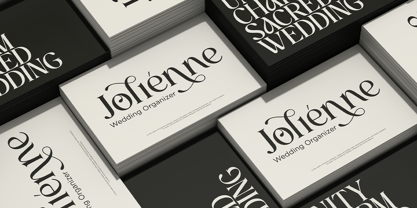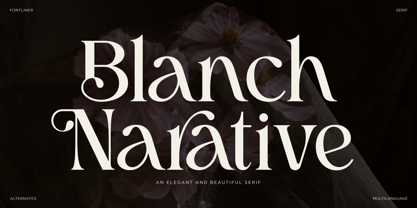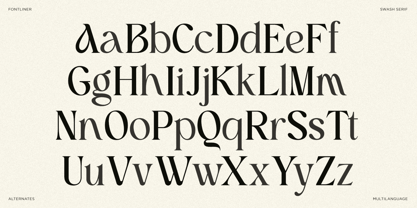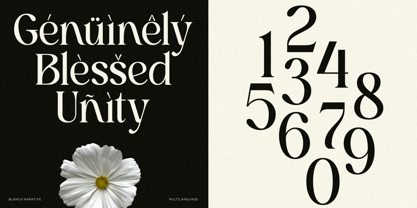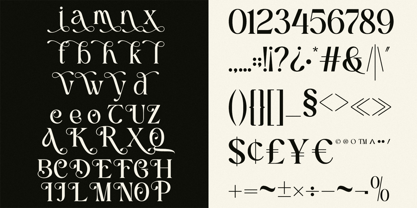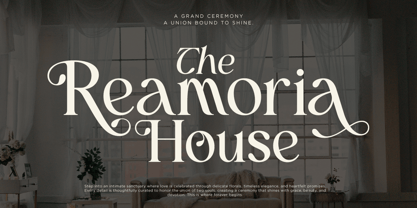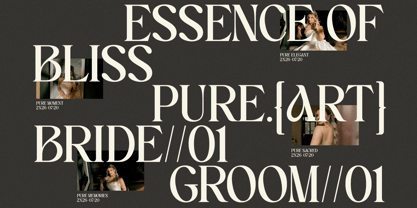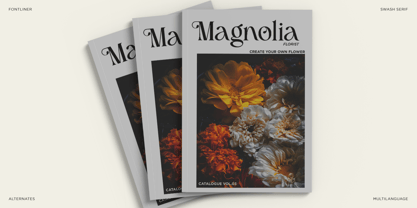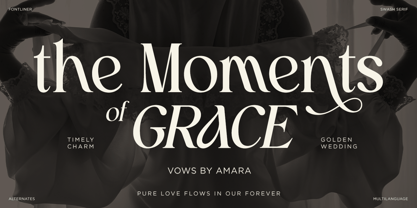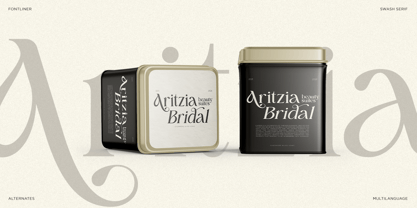
Blanch Narative
by Font Liner
The Blanch Narative Font Family was designed by Ghina Luthfiarieska and published by Font Liner. Blanch Narative contains 2 styles and family package options. More about this family
Blanch Narative is a luxury modern serif font designed to capture timeless elegance with a contemporary editorial touch. Featuring graceful curves, refined contrast, and sophisticated ligatures, this typeface delivers an exclusive aesthetic that enhances premium branding and creative design projects.
Perfect for luxury logos, wedding invitations, fashion editorials, beauty branding, cosmetic packaging, boutique identities, magazines, book covers, social media graphics, and high-end marketing materials, Blanch Narative combines classic sophistication with modern versatility. Every character is thoughtfully crafted to create a polished and memorable visual experience.
Whether you're designing for a luxury brand, bridal studio, lifestyle business, or premium publication, Blanch Narative provides the elegance and professionalism needed to make every project stand out.
• Stylistic alternates
Designers: Ghina Luthfiarieska
Foundry: Font Liner